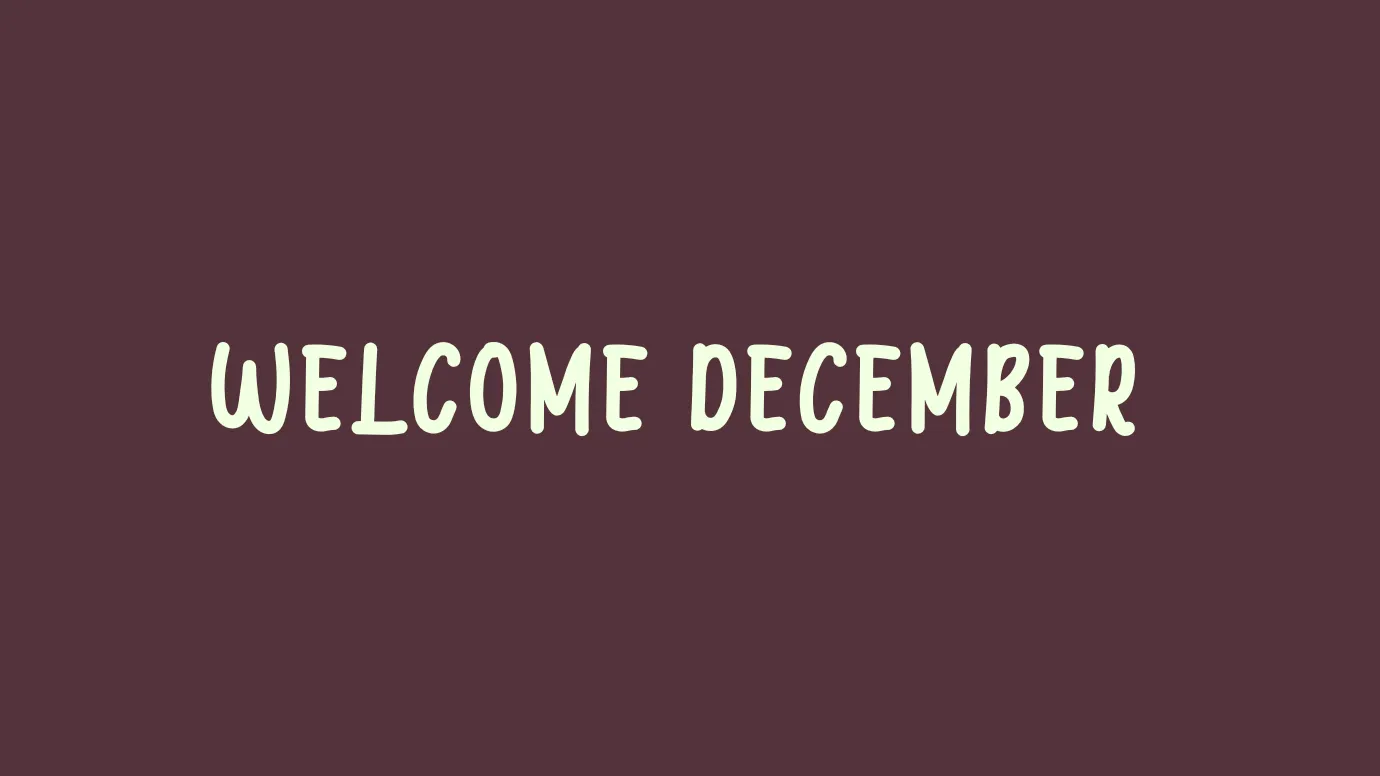
Welcome December Font Family is a very lovely handwritten typeface. This interesting font is designed by Andi Moz. It has amazing features as this font is perfect for all types of commercial or personal projects by using this font.
It contains 148 characters, 97 glyphs, and 1000 units per Em. The weight of the font is semi-bold and its width is semi-condensed. Unicode supports this font 2.0 and BMP only.
Welcome December Font